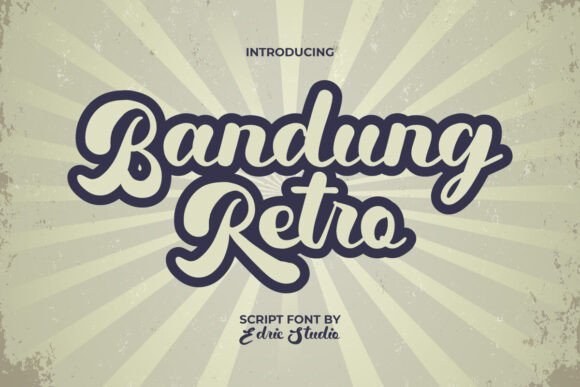
Step Back in Time with the Groovy Bandung Retro Font
You know that feeling when you stumble upon an old vinyl record or a vintage photograph and suddenly, a wave of nostalgia washes over you? That’s exactly the kind of creative spark that the Bandung Retro Font is designed to ignite. This classic 80’s vibe script font is a masterclass in retro charm, with its attractive shapes and styles that transport you back to a bygone era.
The Bandung Retro Font is more than just a nostalgic throwback – it’s a valuable tool for designers looking to add a touch of vintage magic to their projects. With its multiple ligatures and groovy style, this font is perfect for capturing the essence of any industry, from accessories to publishing, and everything in between. Whether you’re a seasoned designer or just starting out, the Bandung Retro Font is sure to be a valuable addition to your creative toolkit.
Bandung Retro Font Key Features
- Font Style: A unique, distressed font with a retro aesthetic, perfect for vintage or nostalgic designs.
- Characters: Includes a wide range of characters, including uppercase and lowercase letters, numbers, and special symbols, for comprehensive use.
Bandung Retro Font Review
Overall, I think the Bandung Retro Font is a solid choice for anyone looking for a unique, vintage-inspired font. Here are some of its strengths: ✨
- Unique aesthetic – The Bandung Retro Font has a distinctive, retro vibe that’s perfect for projects that need a touch of nostalgia.
- Good for titles and headings – The font is bold and eye-catching, making it ideal for use in titles and headings.
- Wide language support – The font includes a wide range of languages, making it a great choice for projects that require multilingual support.
However, there are also some limitations to consider: ⚠️
- Not suitable for body text – The font is a bit too bold and ornate for use in large blocks of body text, and can be difficult to read at smaller font sizes.
- Limited customizability – The font doesn’t offer a lot of customization options, which may limit its use in certain design scenarios.
Overall, I think the Bandung Retro Font is a great choice for projects that need a unique, retro vibe. While it may not be the best choice for body text or projects that require a lot of customization, it’s a solid option for titles, headings, and other design elements where a bold, eye-catching font is needed.
To get the most out of the Bandung Retro Font, consider the following tips:
- Use it in conjunction with other retro-themed elements, such as distressed textures and vintage graphics.
- Pair it with bold, bright colors to create a striking contrast.
The Bandung Retro Font is ideal for:
- Retro-themed designs, such as posters, flyers, and business cards.
- Vintage-inspired branding and marketing materials.
- Graphic design projects that require a nostalgic or retro feel.